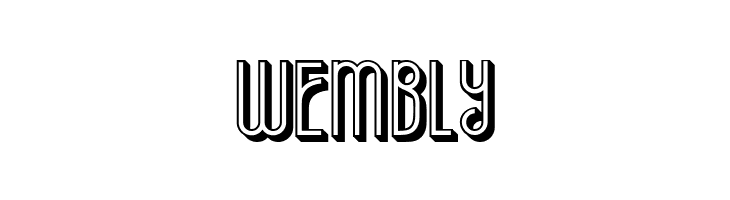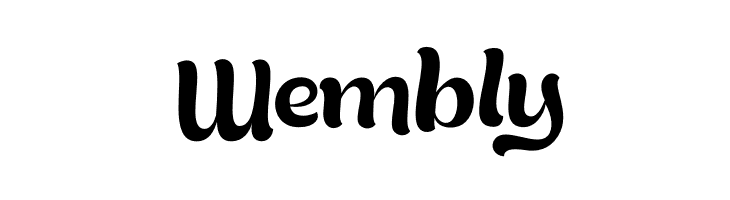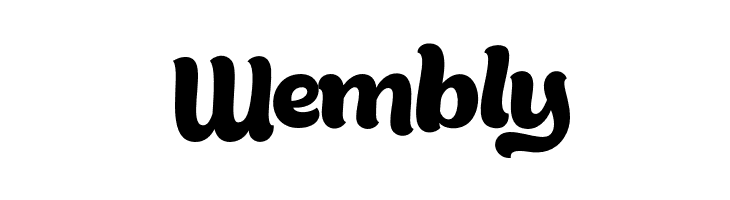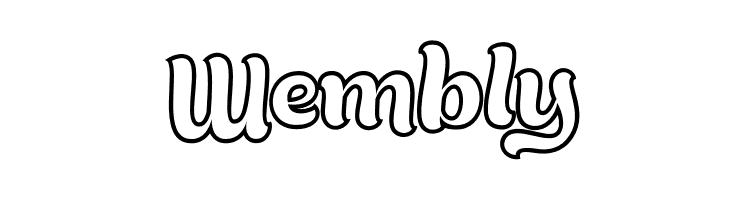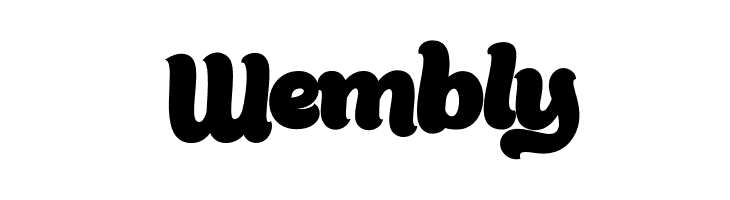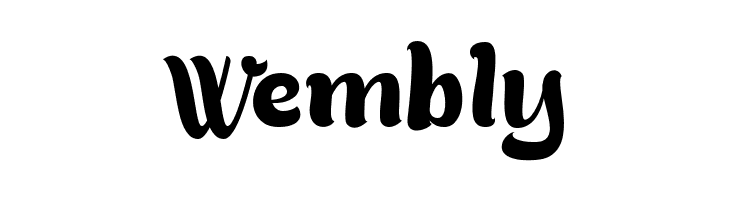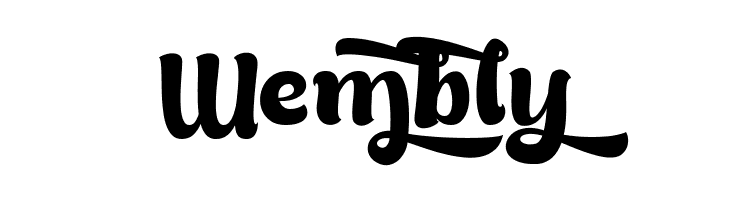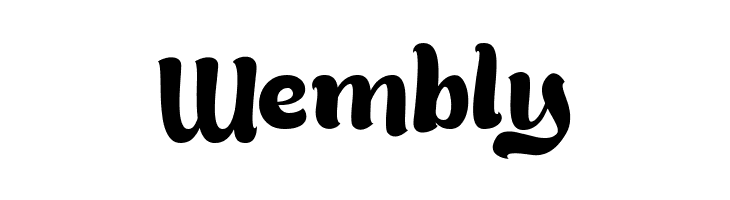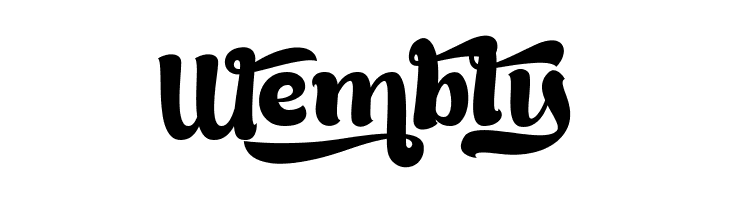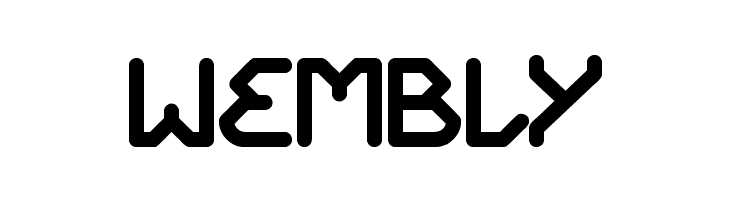
Coverface SE Font
Rautan
A rounded, bold font with a playful yet professional style.
Ready Player One Font
A futuristic, geometric font with bold, angular letterforms and a tech-inspired aesthetic.
KlausBFraktur Font
A traditional Blackletter font with ornate, angular characters and historical elegance.
Ready Black Font
An elegant script font with intricate swashes and decorative elements.
Ready for my Closeup Font
A classic serif font with elegant serifs and a sophisticated appearance.
Ready to Ride Font
A sophisticated and elegant script font with flowing, cursive letterforms.
ready steady go Font
A bold, decorative font with horizontal stripes and geometric precision.
READY PLAYER FONTE Font
A bold, geometric font with a futuristic and playful design, featuring unique cutouts and patterns.
GET READY Font
A bold, geometric font with a futuristic and digital aesthetic.
Ready Regular Font
A bold, geometric font with a three-dimensional shadow effect.
Ready For It DEMO Regular Font
A playful and elegant script font with a handwritten style.
ReadyStart Font
A bold, textured font with a rugged, distressed appearance.
ReadyMade Font
A distressed, artistic font with a rough, textured appearance.
Scream When You're Ready To Die Regular Font
MKPixelProject Font
A pixelated, geometric font with a retro digital aesthetic.
Shark Ready Font
An elegant script font with flowing, ornate lines and sophisticated style.
Better get ready Font
A hand-drawn, organic font with tall, narrow characters and a slightly distressed look.
Ready For It Font
A flowing, cursive script font with elegant, connected strokes.
Ready Lover Font
A playful, heart-filled decorative font perfect for romantic or fun themes.
Ready to Ride_PersonalUseOnly Font